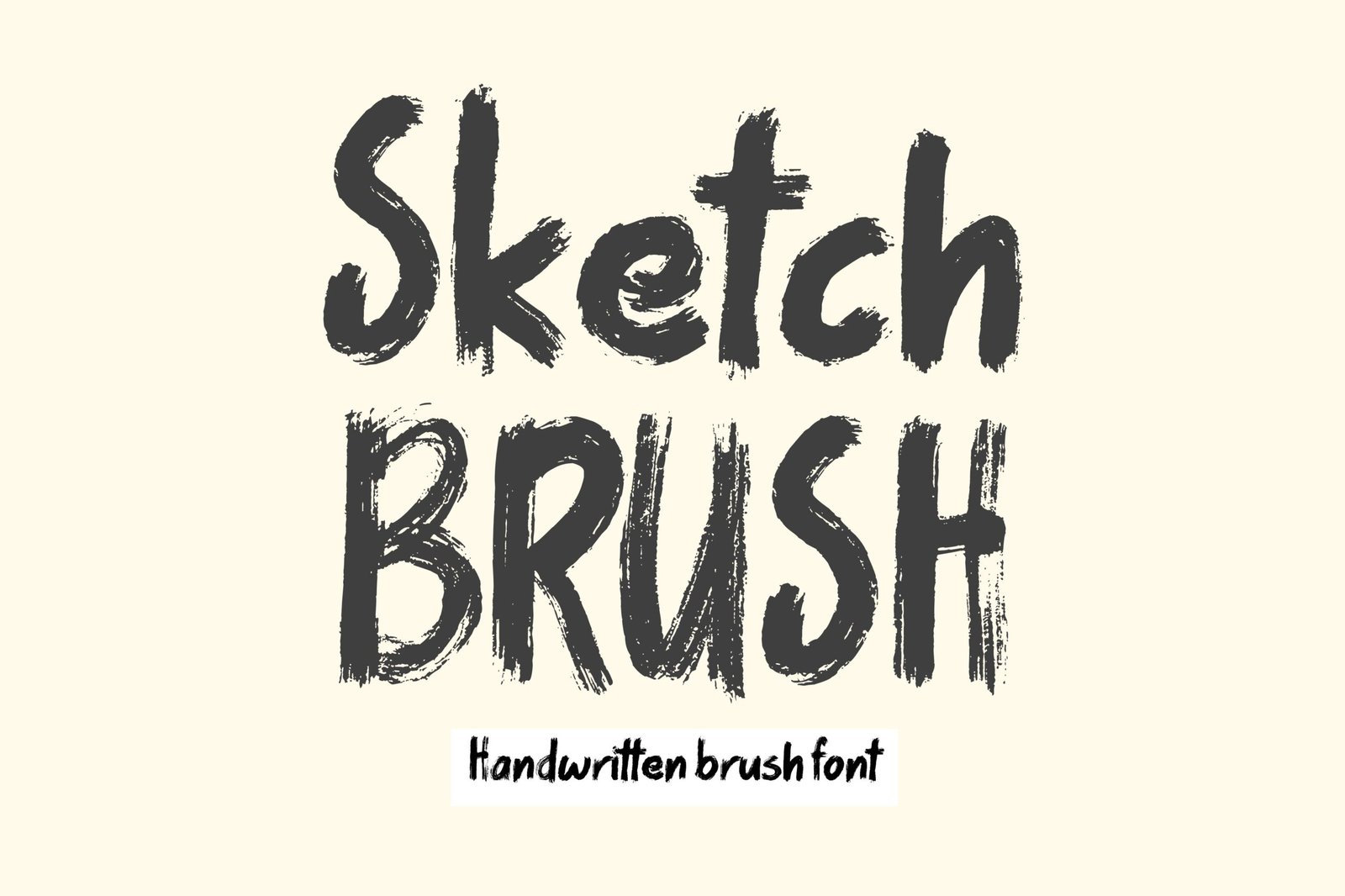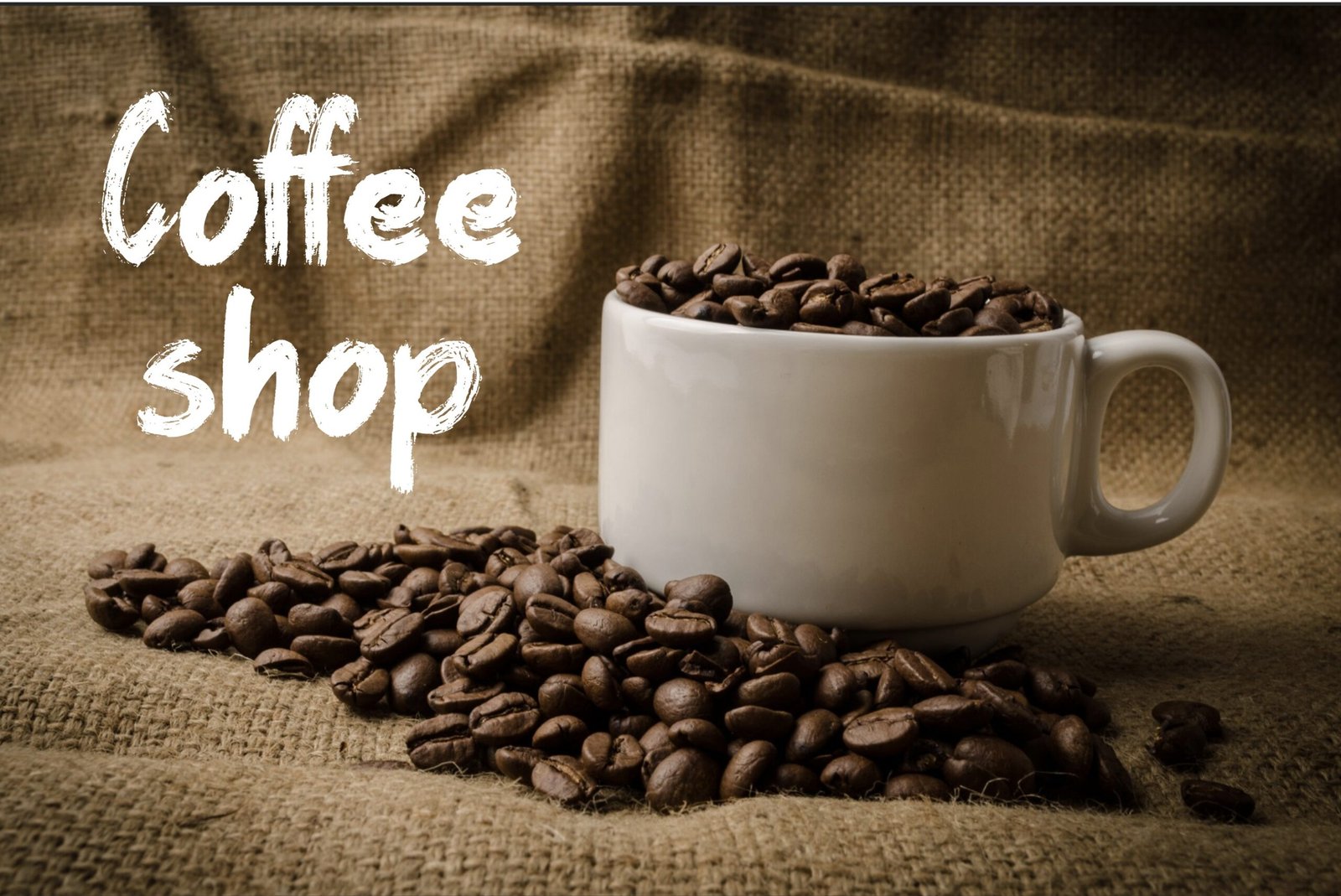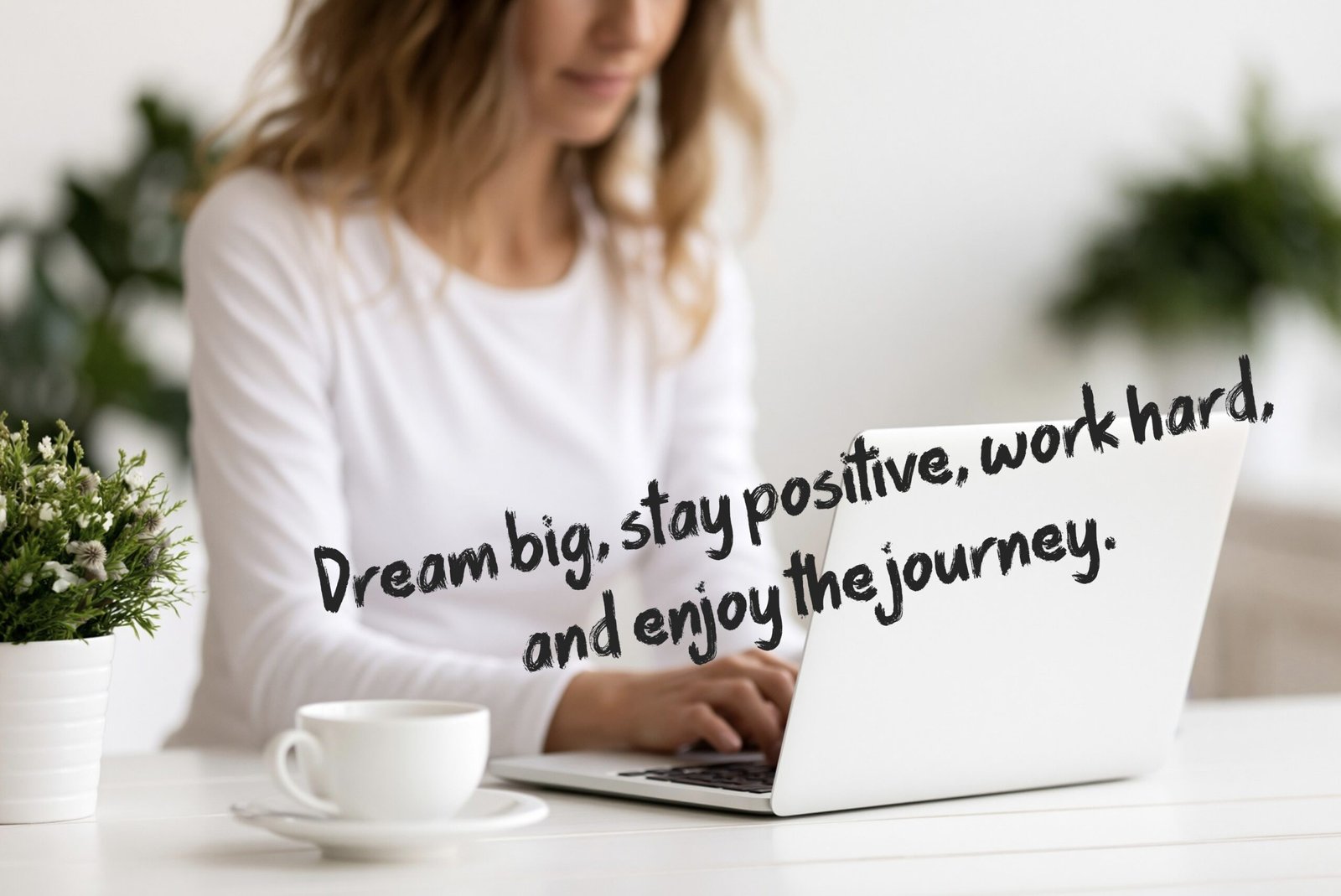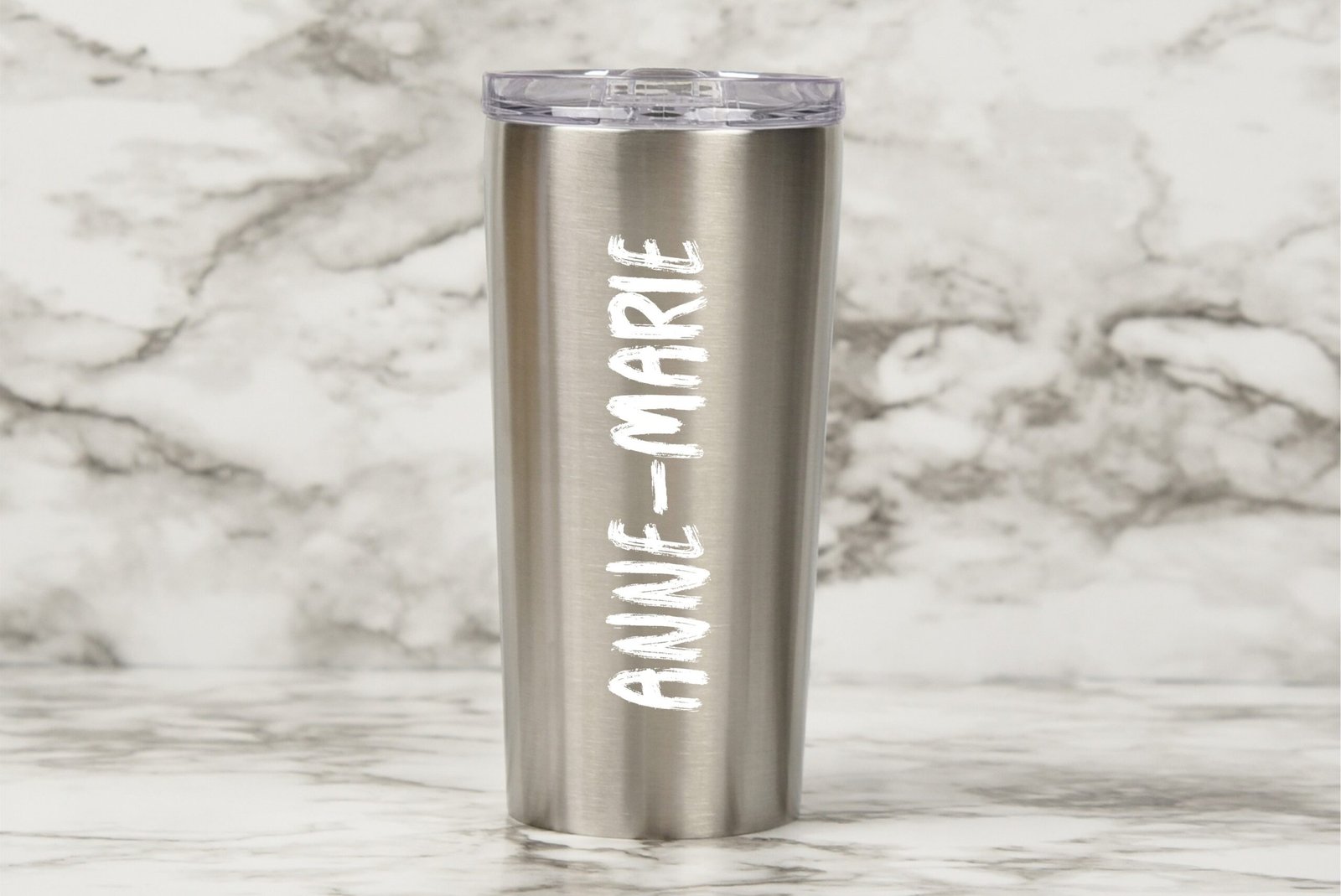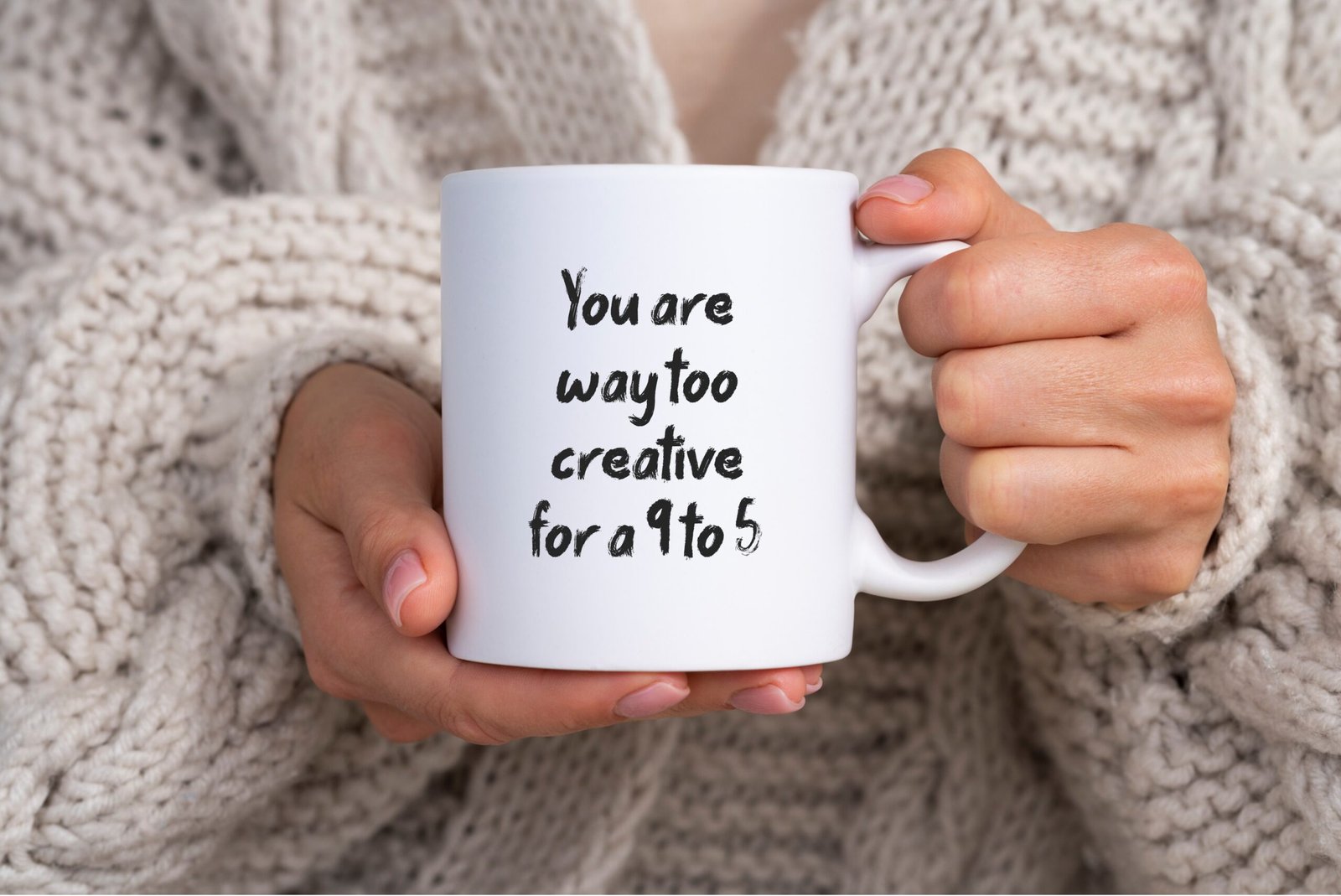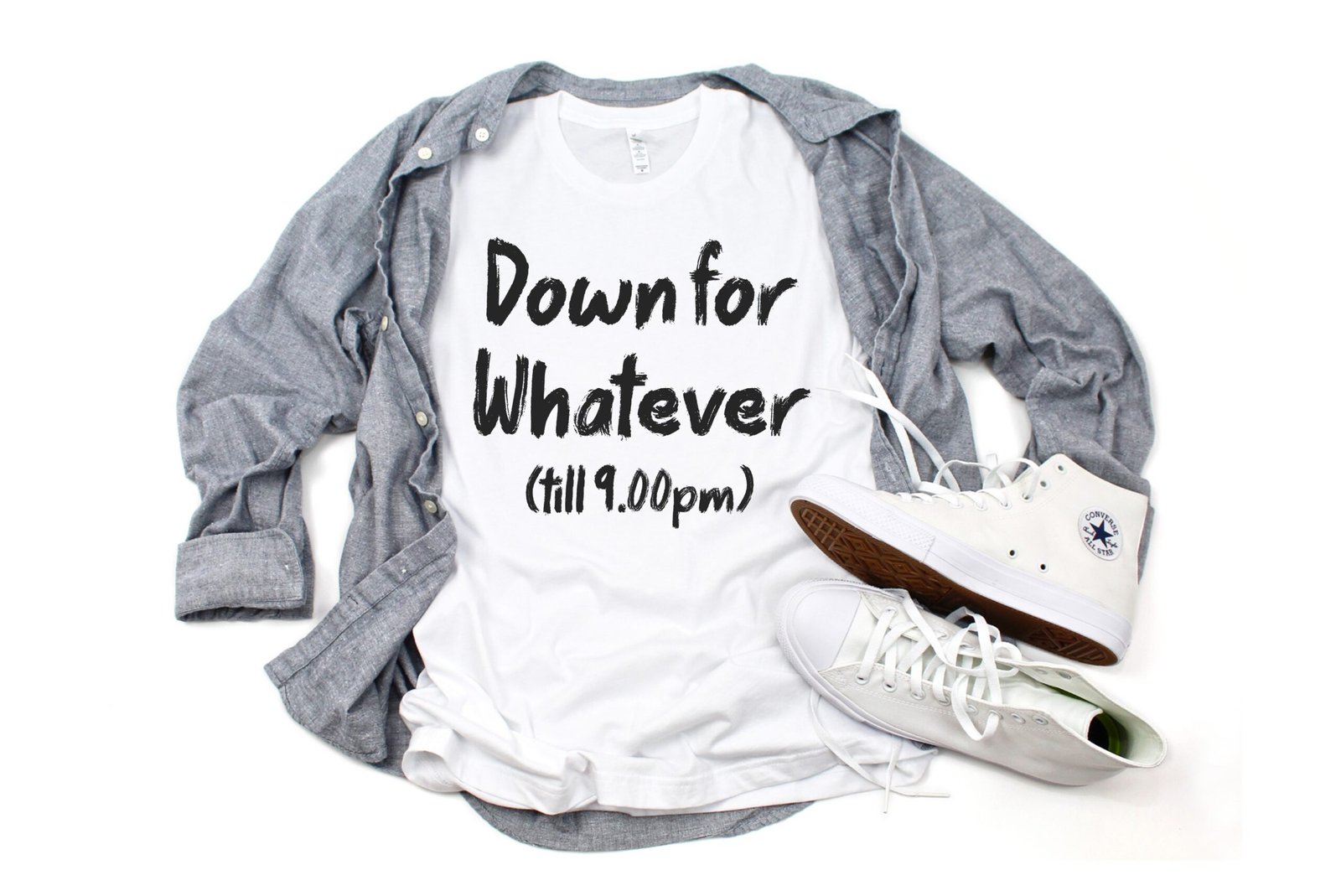
Sketch Brush Font
Handwritten brush font. “Sketch Brush”. Perfect for advertising and display purposes, including banners, book covers, shirts, posters, logos and much more!
Featuring all upper and lowercase letters, numbers, characters, and punctuation.